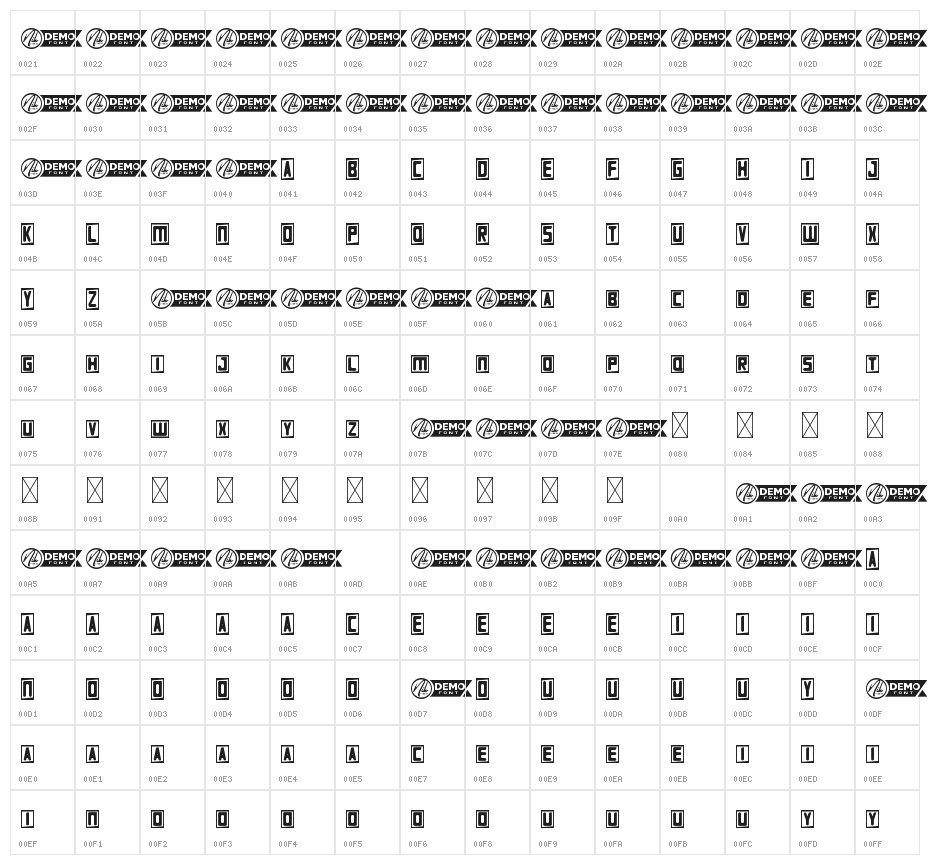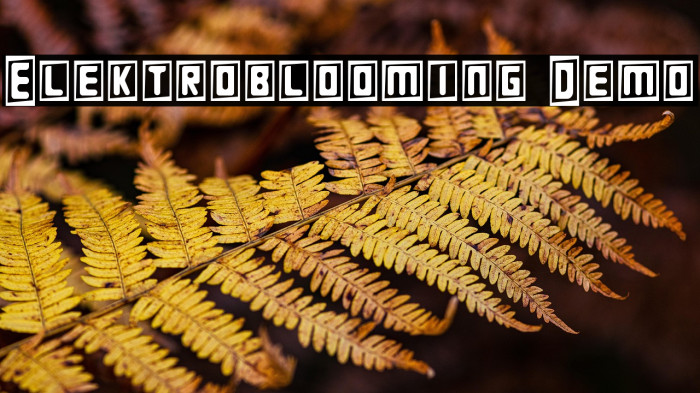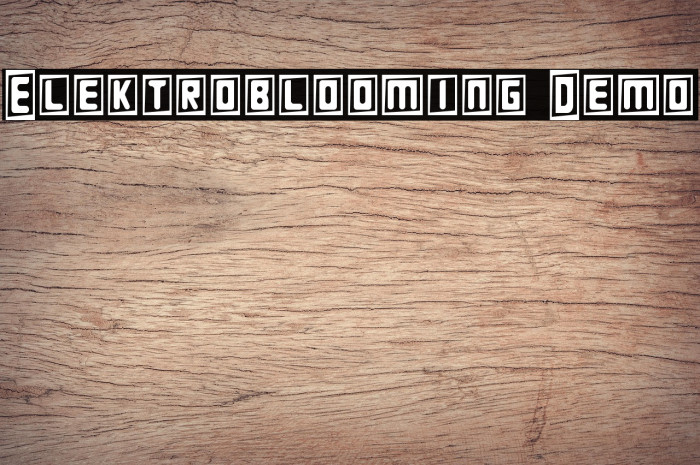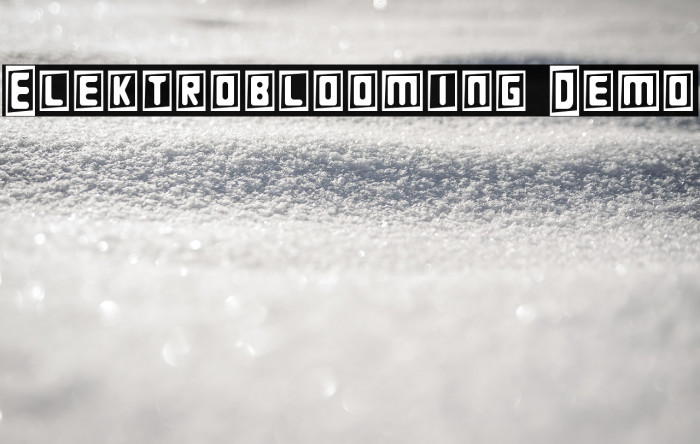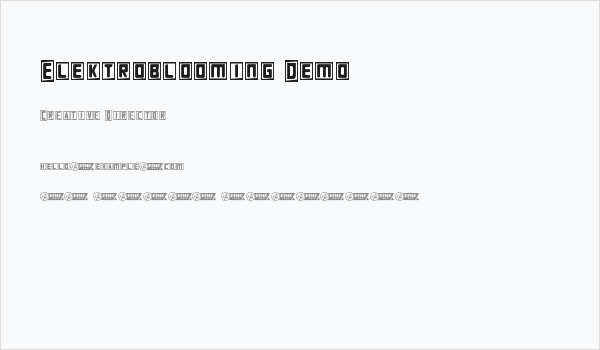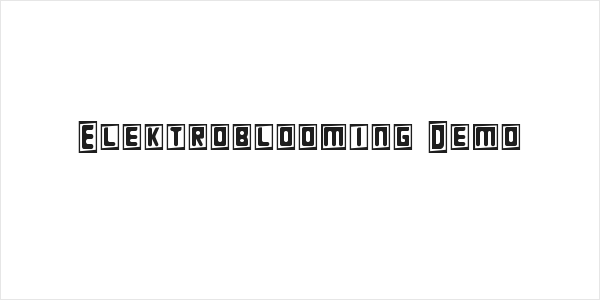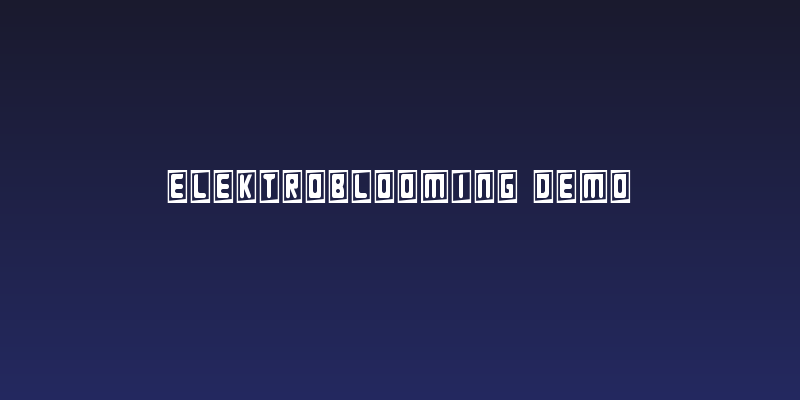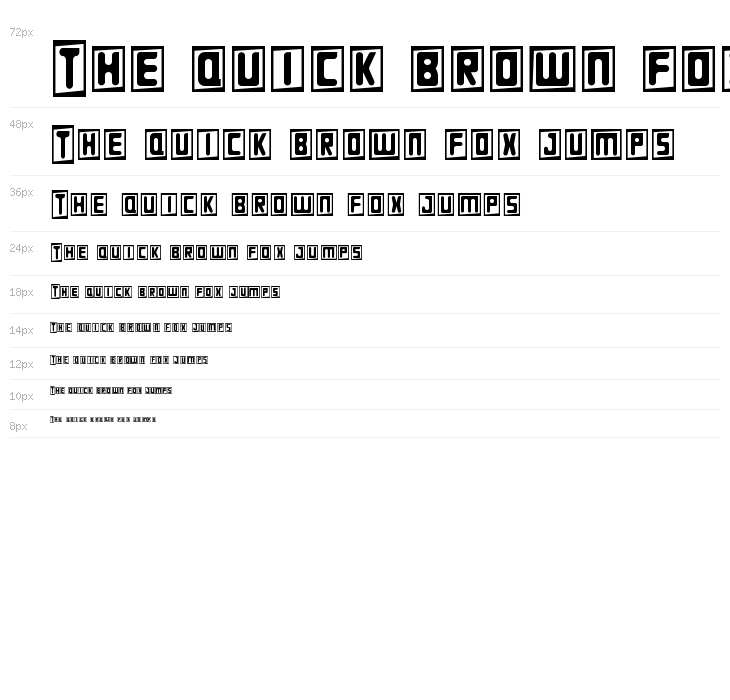
Elektroblooming Demo Font
Elektroblooming Demo Description
This font features bold, uppercase letters enclosed within square frames, creating a striking and modern appearance. Each character is uniquely designed with a playful and slightly irregular form, adding a sense of dynamism and creativity. The thick strokes and high contrast between the black letters and white background enhance readability while maintaining a decorative flair. The enclosed design gives each letter a distinct presence, making it ideal for attention-grabbing headlines or branding materials. The playful yet structured style makes it versatile for various creative projects.
| Proposed Projects | Ideal for branding, posters, headlines, and creative design projects that require a bold and modern touch. |